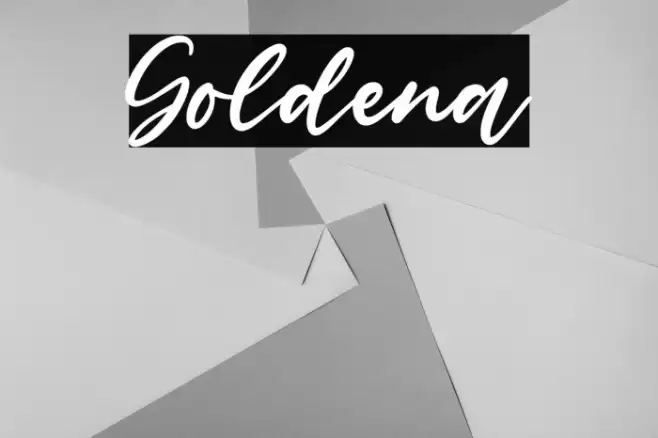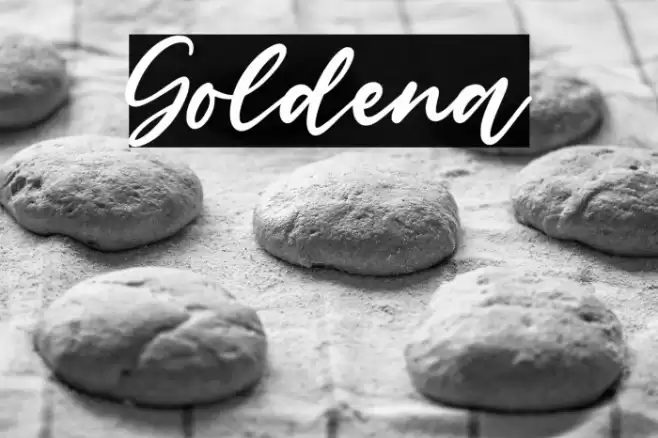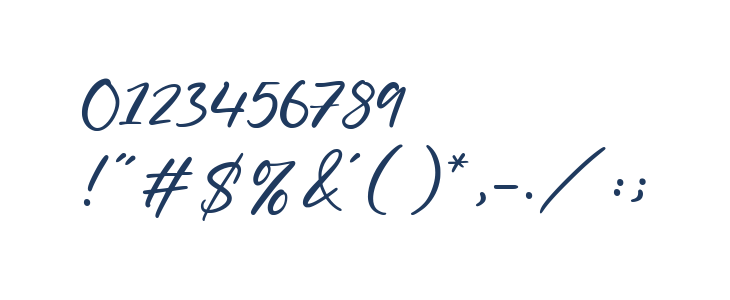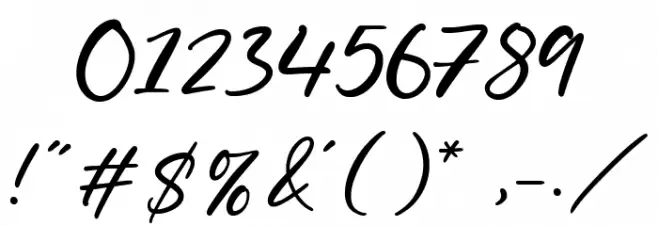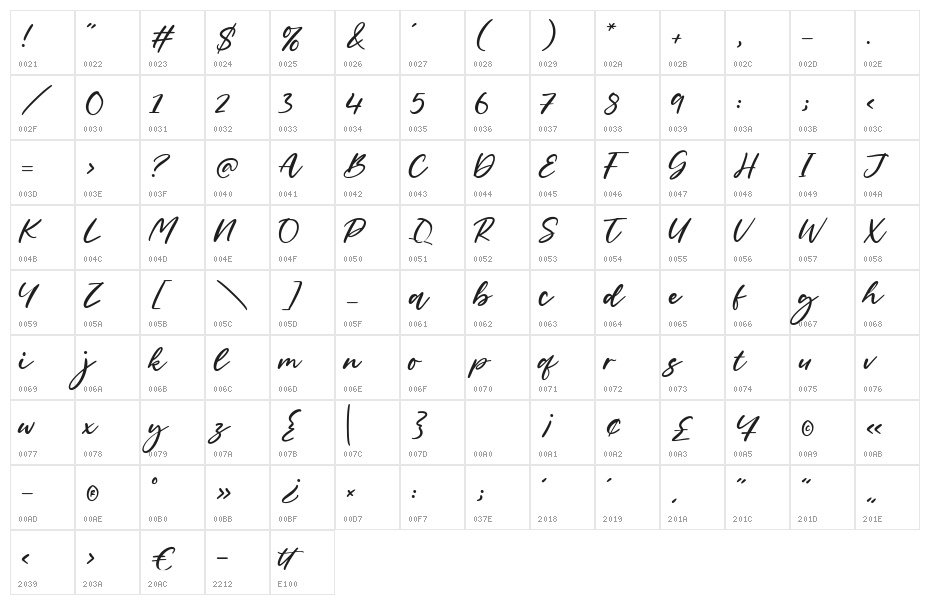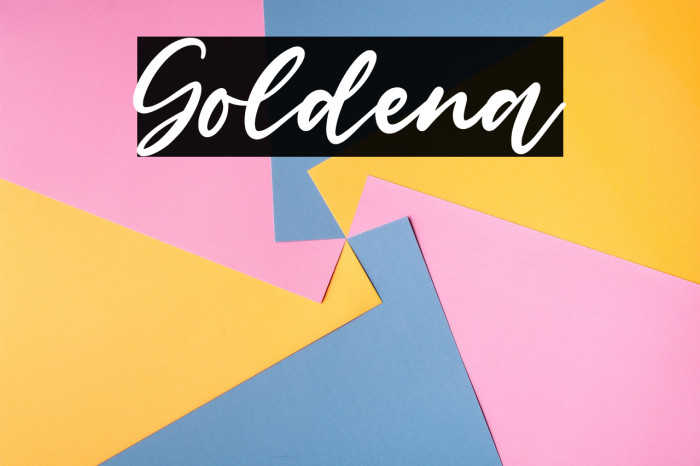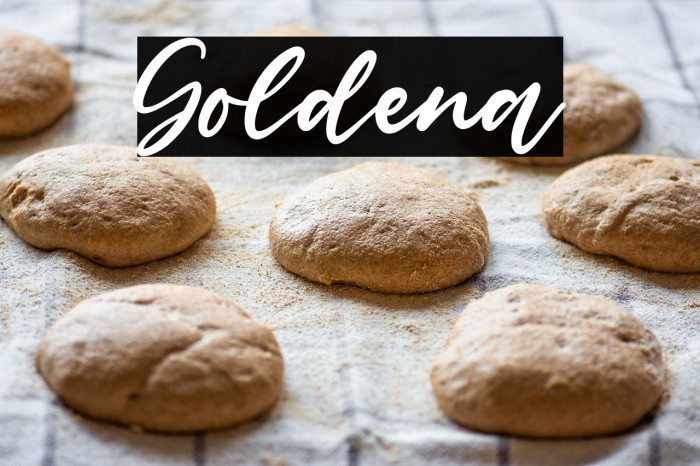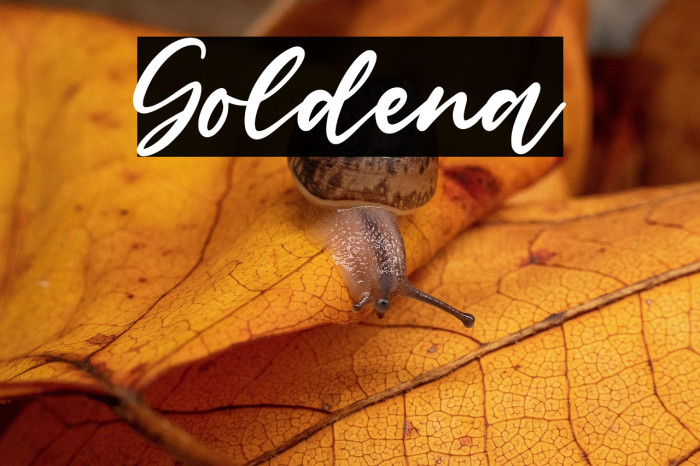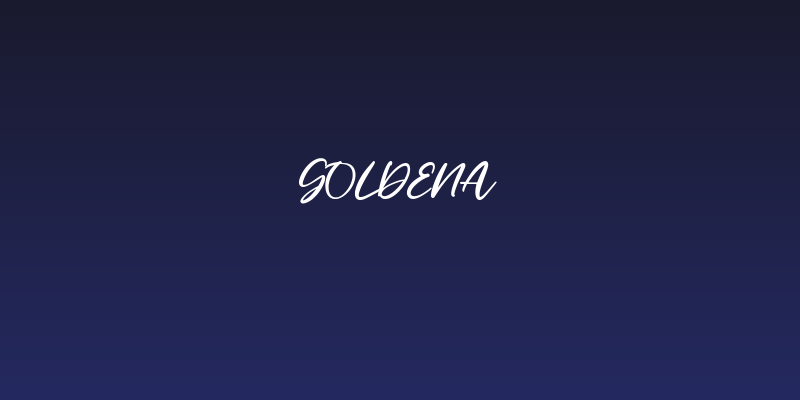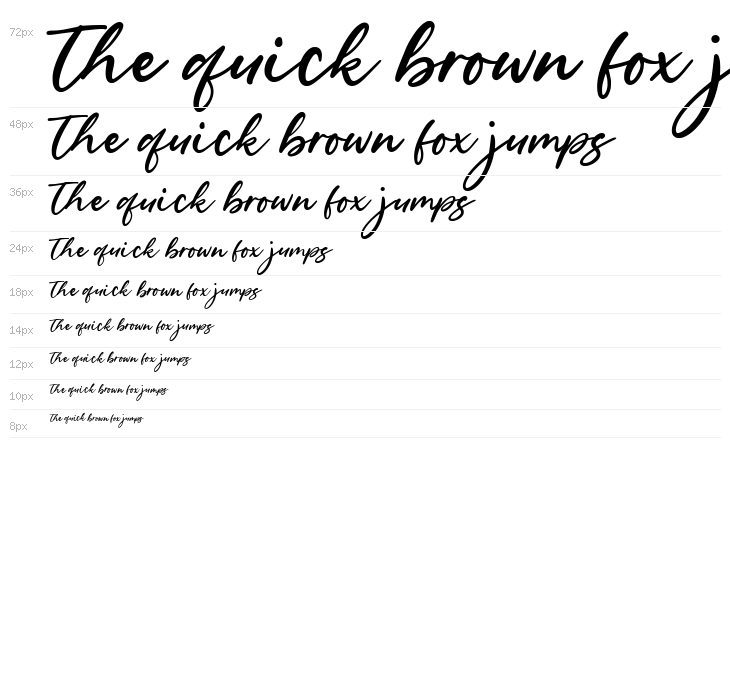
Goldena Font
Goldena Description
This font exudes a dynamic and fluid style, characterized by its elegant, cursive script. The letters are interconnected, creating a seamless flow that mimics natural handwriting. The strokes are smooth and slightly varied in thickness, adding a touch of sophistication and personality. The uppercase letters are bold and prominent, while the lowercase letters maintain a graceful continuity. Numbers and special characters are designed to match the overall aesthetic, ensuring consistency across all text elements. This font is ideal for projects that require a personal, artistic touch.
A fluid, cursive script font with elegant, interconnected letters from Uncategorized fonts.
- Proposed Projects: Perfect for wedding invitations, greeting cards, branding, and personal stationery.
- Overall Style: Elegant, Artistic
- Use Case: Logos, Invitations, Personal projects